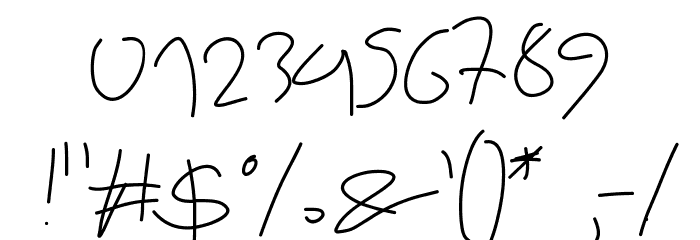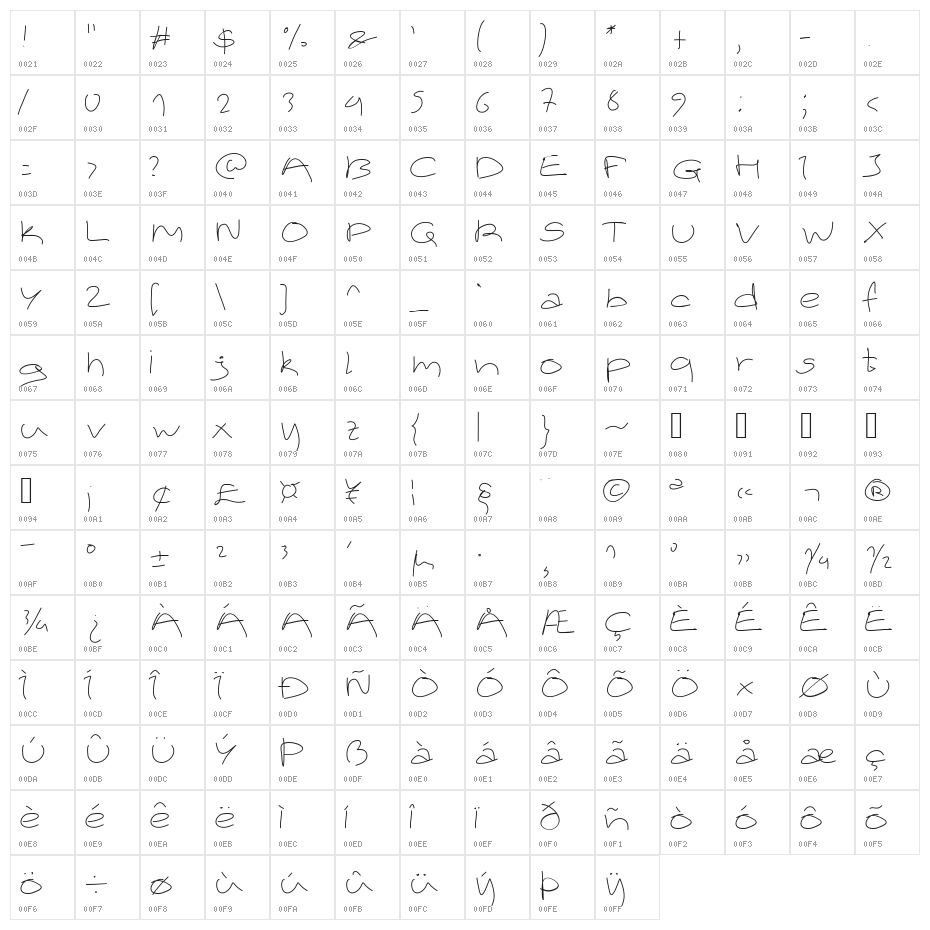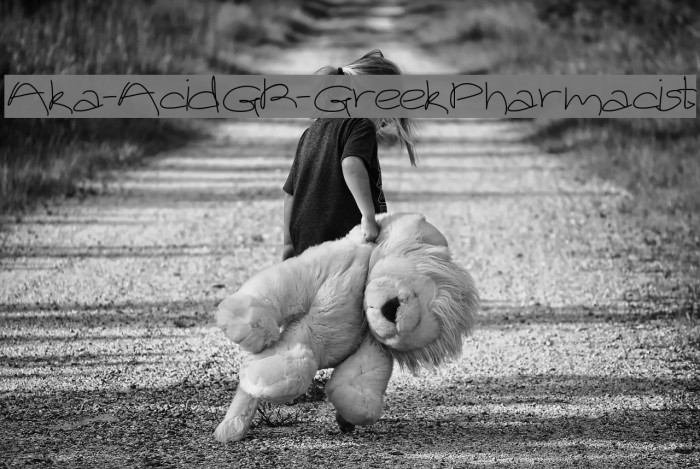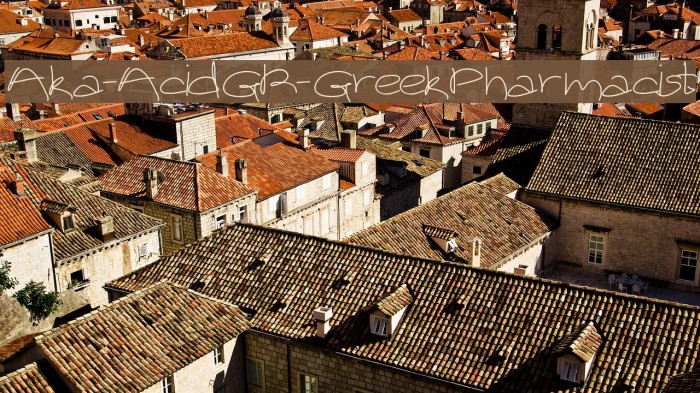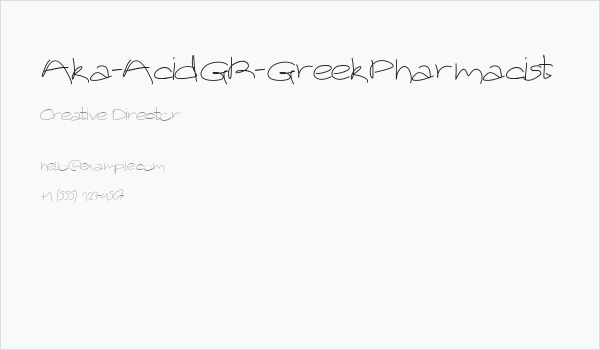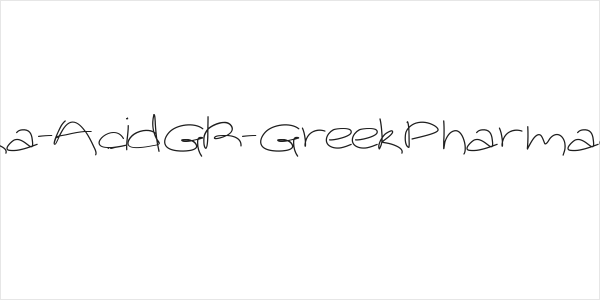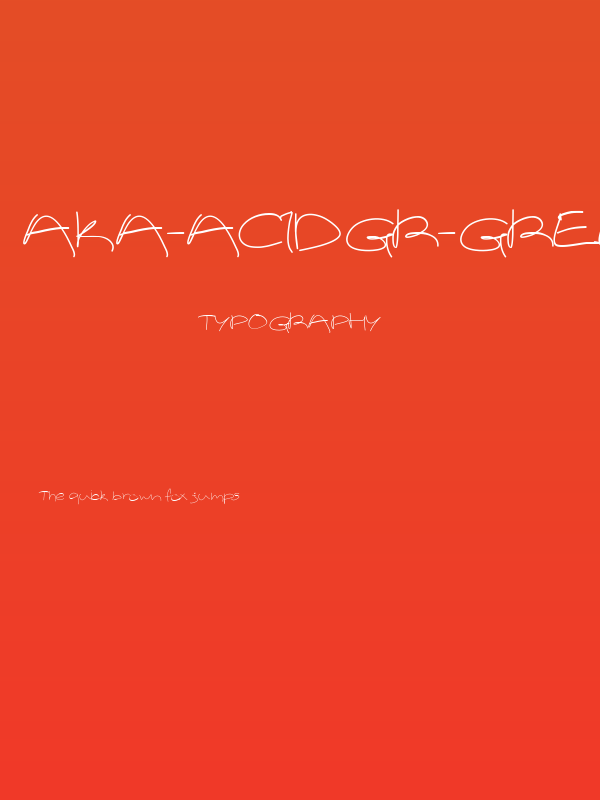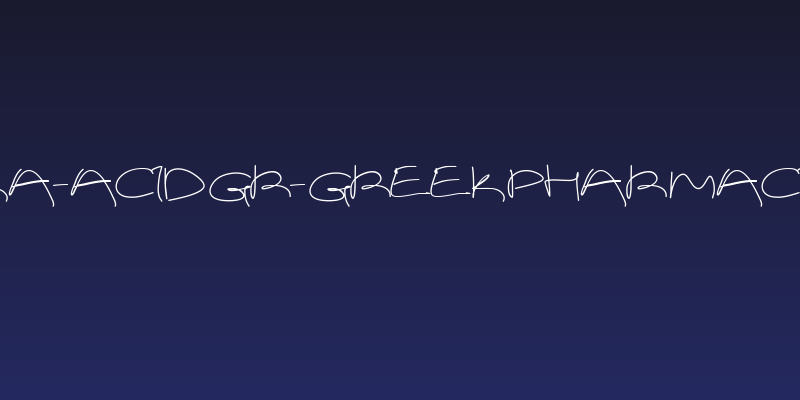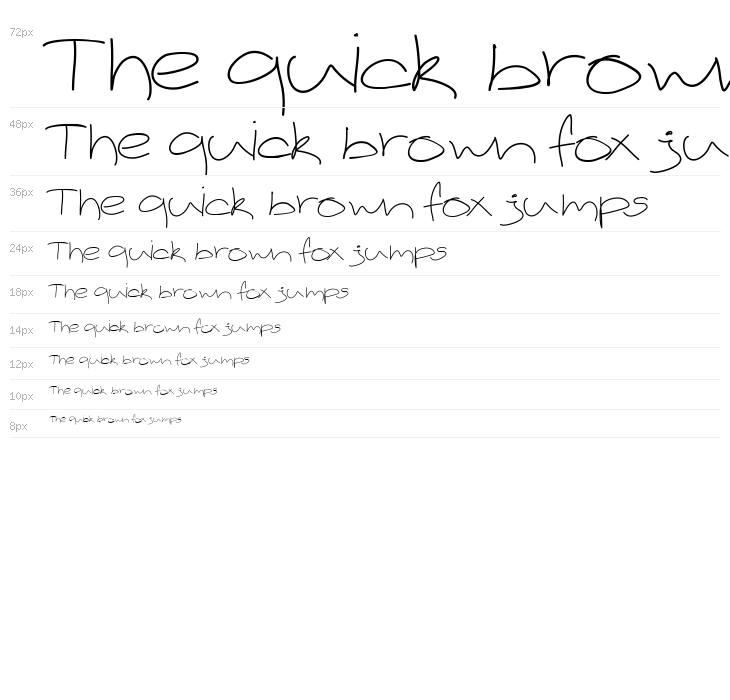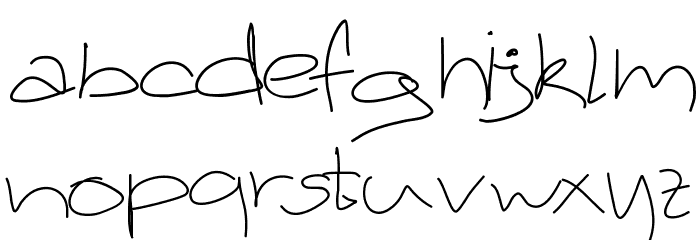
Aka-AcidGR-GreekPharmacist Font
Aka-AcidGR-GreekPharmacist Description
This font features a playful and casual handwritten style, characterized by its fluid and dynamic strokes. The letters have a slightly irregular baseline, adding to the informal and approachable feel. The uppercase and lowercase letters are well-balanced, with a consistent stroke width that maintains readability. The numerals and special characters follow the same style, ensuring a cohesive look across all text elements. This font's unique personality makes it suitable for creative and informal projects.
| Use Case | Logos, Headlines, Informal text |
| Proposed Projects | Ideal for greeting cards, personal branding, social media graphics, and informal invitations. |